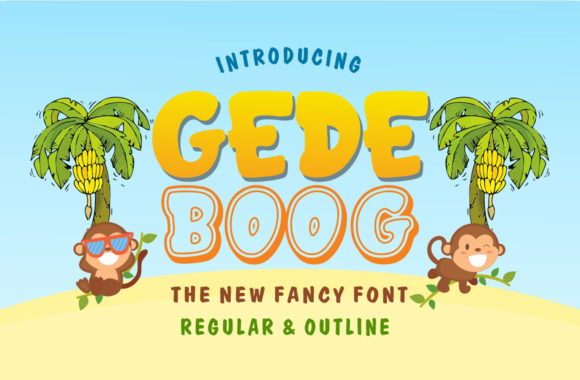
Gedeboog Font
Introducing Gedeboog Font, the Display Font for Creative Wonders!
Escape the ordinary with Gedeboog, a captivating Display Font duo that will ignite your designs with a spark of whimsy and style. Designed by the virtuoso typographer Fachranheit, Gedeboog is an enchanting blend of playful curves and elegant strokes, giving it a personality that is both endearing and unforgettable.
With its two captivating styles, Gedeboog offers endless possibilities for design exploration. Combine them seamlessly to create captivating headlines, vibrant posters, inspiring quotes, and logos that leap off the page with a unique charm. The possibilities are boundless, limited only by the depths of your imagination.
Whether you're crafting personalized t-shirts, adorning magazine covers with evocative headlines, or creating awe-inspiring artwork that demands attention, Gedeboog is your font of choice. Its versatility knows no bounds, making it the perfect companion for designers seeking to add a touch of magic to their creations.
Indulge in the playful spirit of Gedeboog, and let your designs blossom with a captivating charm that will enchant your audience. Experience the joy of creating something truly extraordinary, where imagination takes center stage and leaves an unforgettable impression.